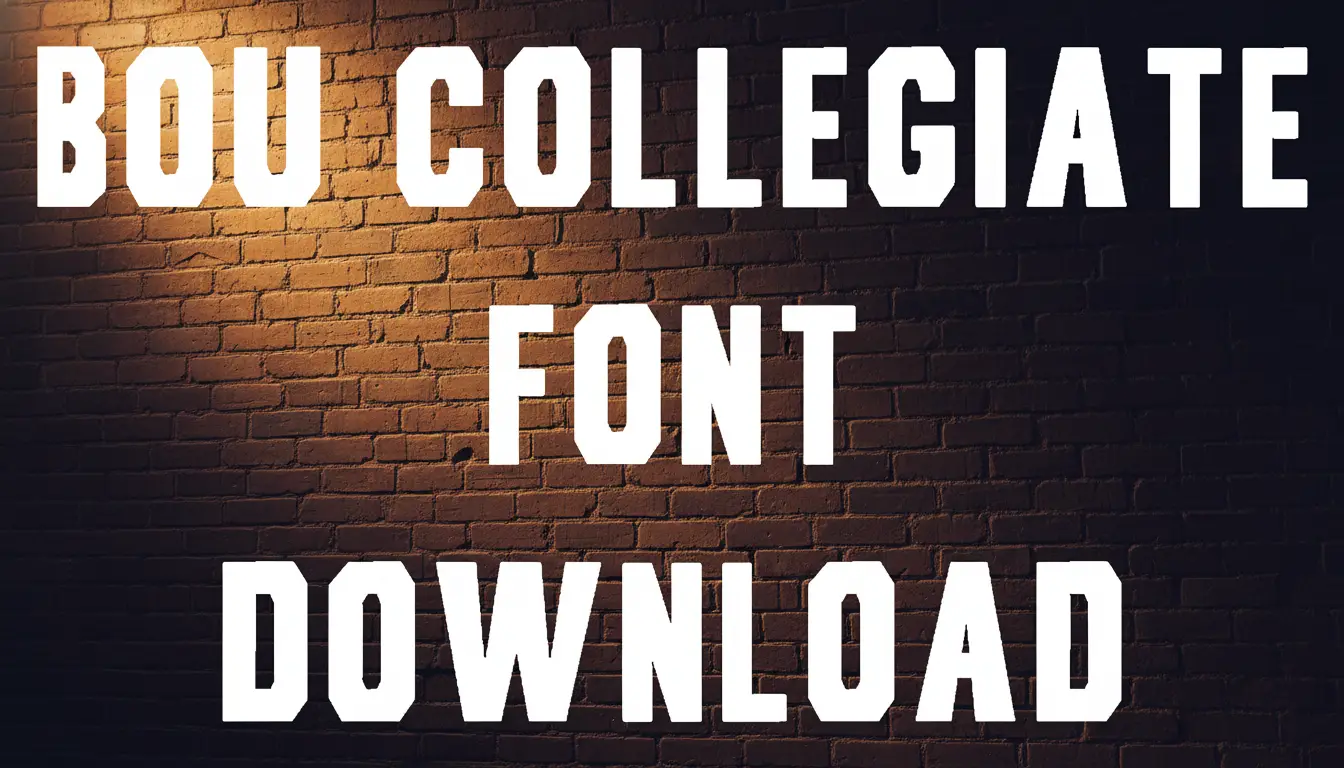
Bou Collegiate Font
Bou Collegiate
Bou Collegiate is a fancy font. It's a decorative display font with plenty of personality, made to grab attention. It's a free download, and you can try it with your own text in the preview above first.
What You Can Type With Bou Collegiate
With complete upper and lowercase letters and all ten digits, Bou Collegiate is ready for real wording, not just a single headline. Everyday marks like &, !, ? and @ are there too. Thanks to its accented letters, it also works for Spanish, French, German, Portuguese and Italian, not just English.
Where Bou Collegiate Works Best
Think of Bou Collegiate for posters, logos and eye-catching headlines. Use it for one standout word or headline and let simpler fonts handle the rest.
Does Bou Collegiate support accented letters?
Yes. Bou Collegiate includes the accented letters needed for Spanish, French, German, Portuguese and Italian, so it works for more than just English.